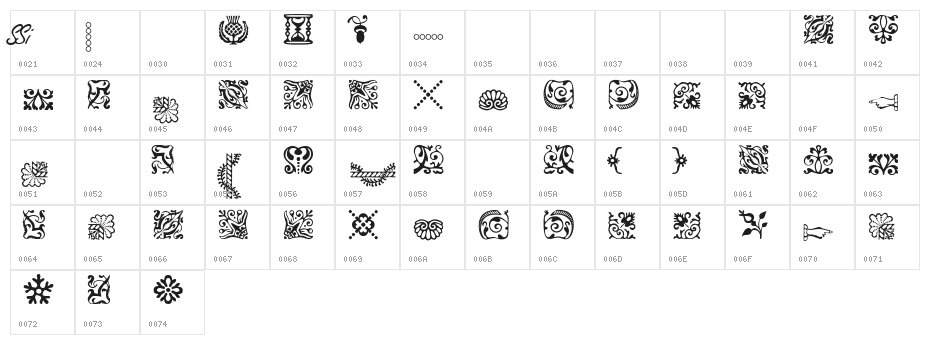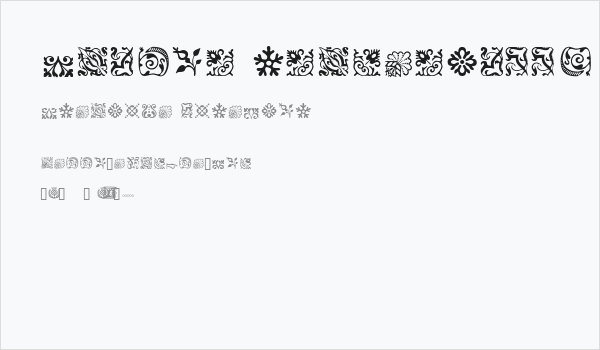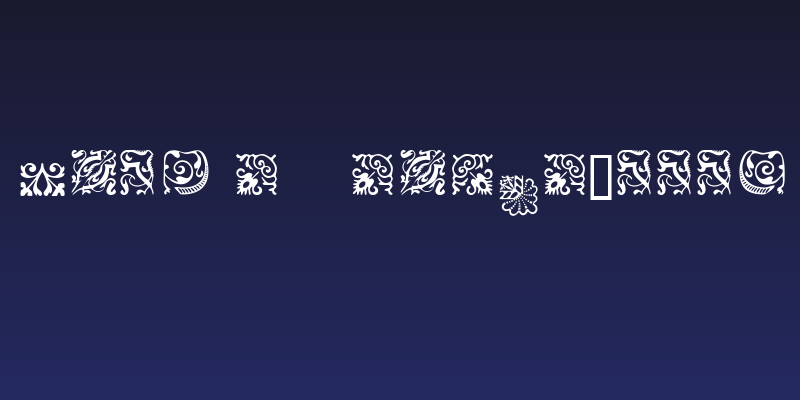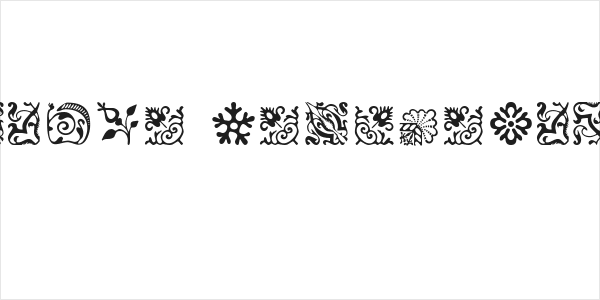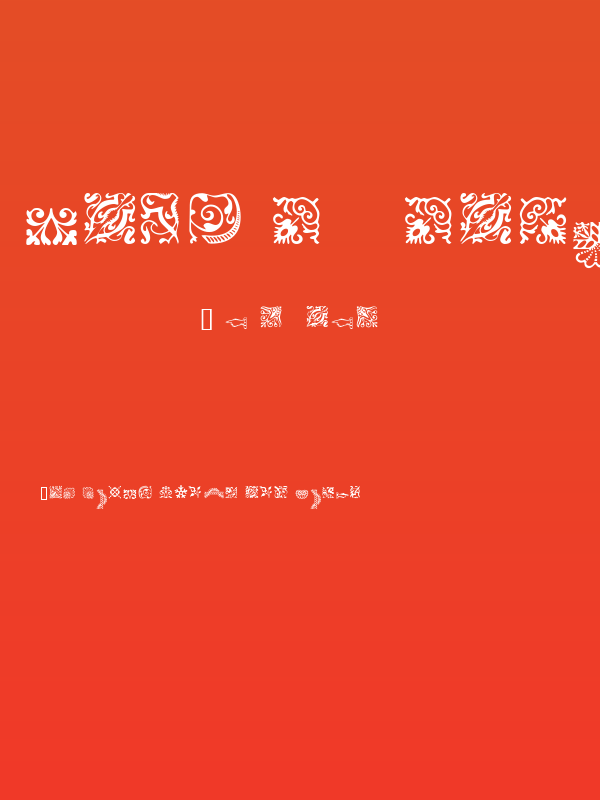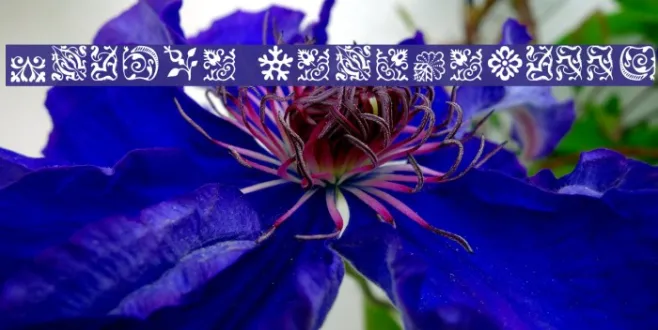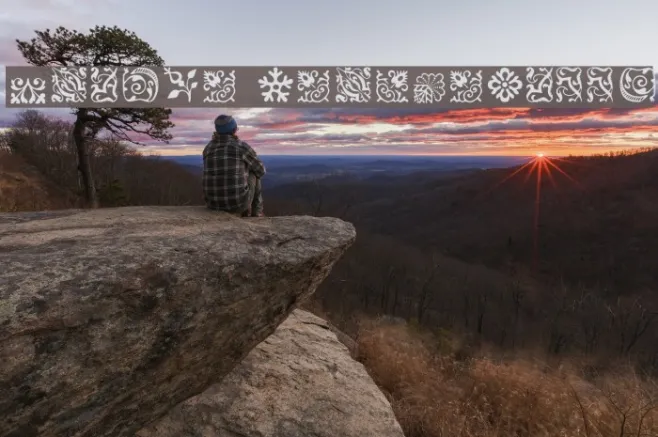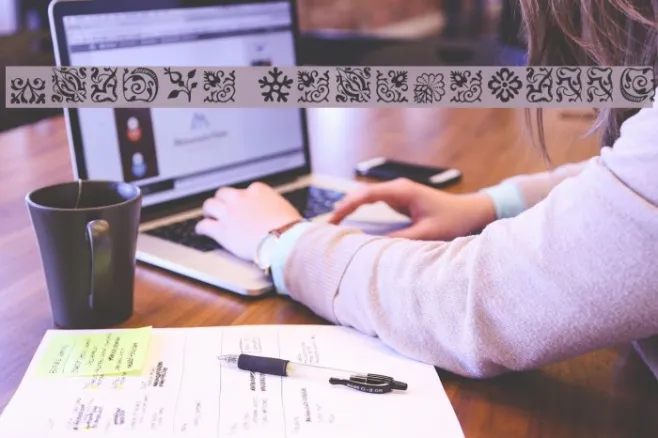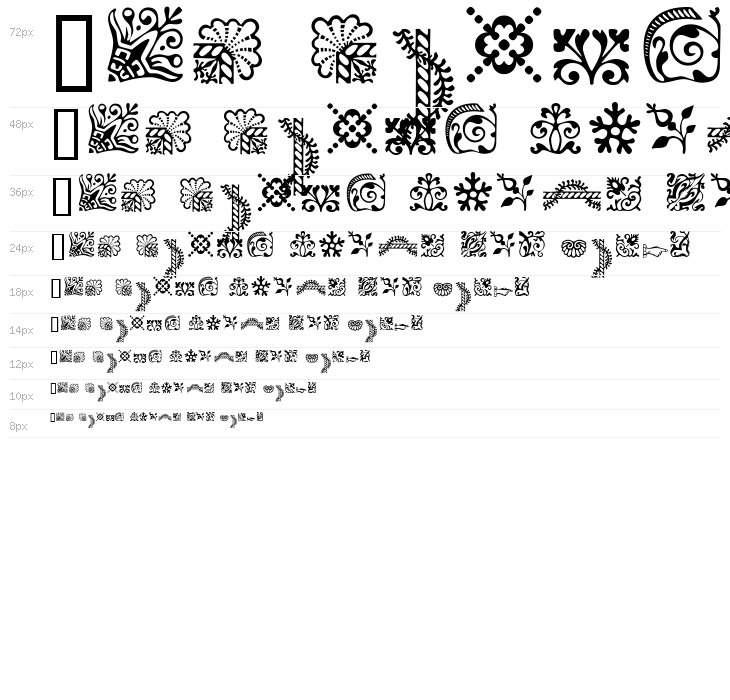
CaslonOrnamentsSSK Font
CaslonOrnamentsSSK Description
This collection features an array of intricate and decorative ornaments, showcasing a variety of floral and abstract motifs. The designs are highly detailed, with symmetrical patterns and flourishes that evoke a sense of elegance and classic beauty. These ornaments are reminiscent of traditional typesetting embellishments, often used to add a touch of sophistication to printed materials. The elements include floral motifs, geometric shapes, and stylized symbols, all crafted with a high level of artistry. The overall appearance is both ornate and balanced, making it suitable for enhancing the visual appeal of various design projects.
| Use Case | Decorative elements, embellishments, and borders. |
| Proposed Projects | Ideal for use in invitations, certificates, book covers, and decorative borders. |